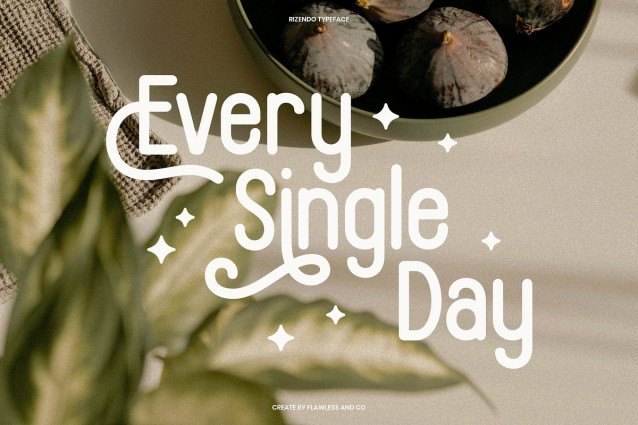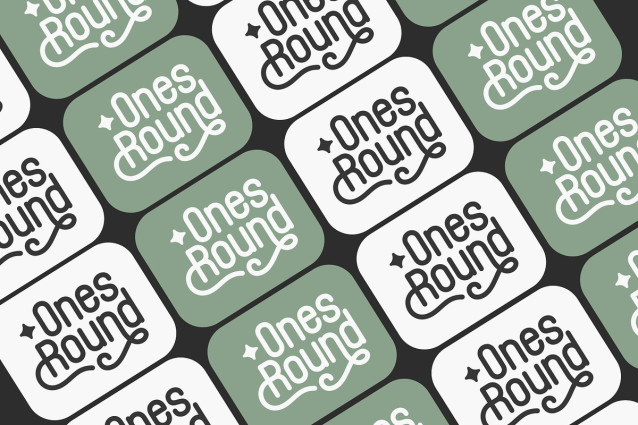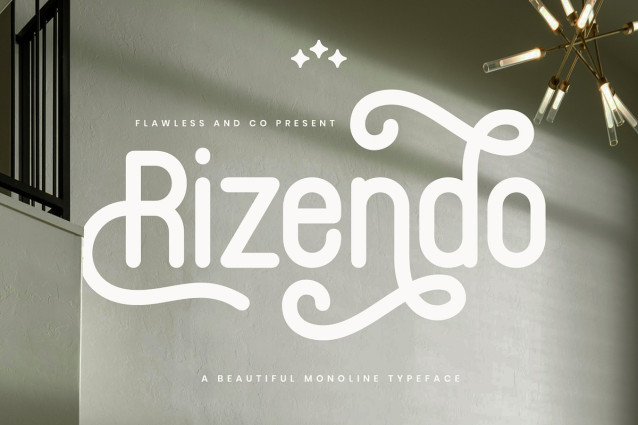
Rizendo Font
Rizendo Font is a charming and expressive monoline typeface designed to add character and elegance to your design work. With its rounded structure and flowing stylistic alternates, RIZENDO strikes the perfect balance between modern minimalism and handcrafted personality. Perfectly suited for branding, packaging, logos, lifestyle blogs, and stylish display compositions, RIZENDO brings a soft, welcoming feel that stands out in any creative project. Whether you’re working on a trendy cafe brand or a warm organic product line, RIZENDO will give your design a distinctive, stylish edge.